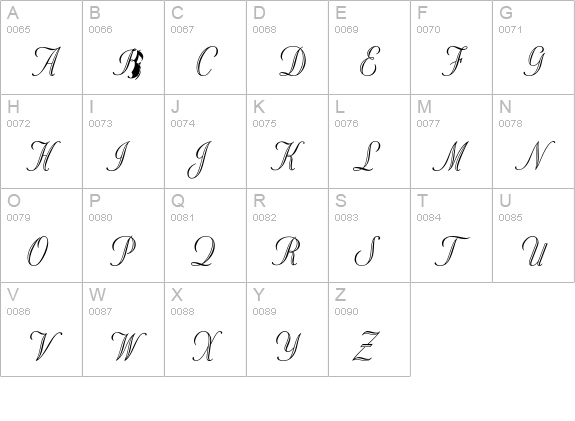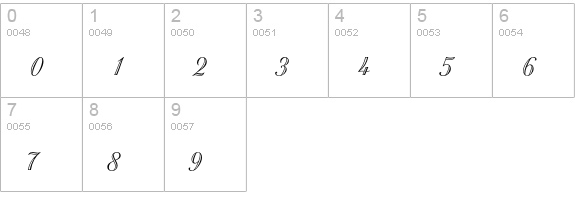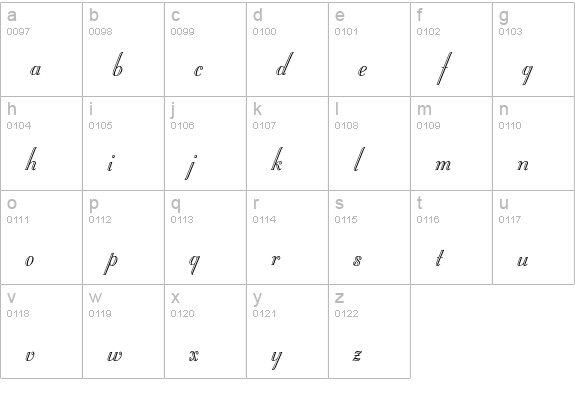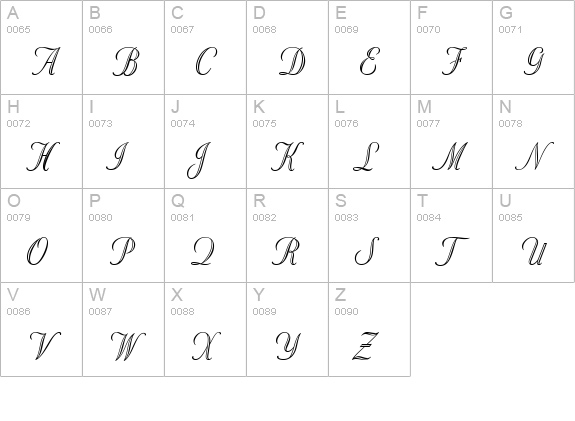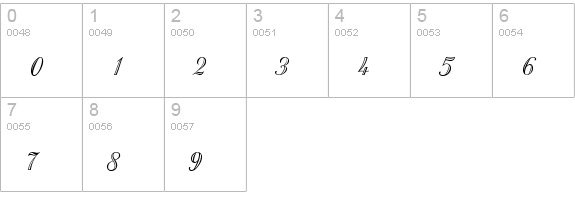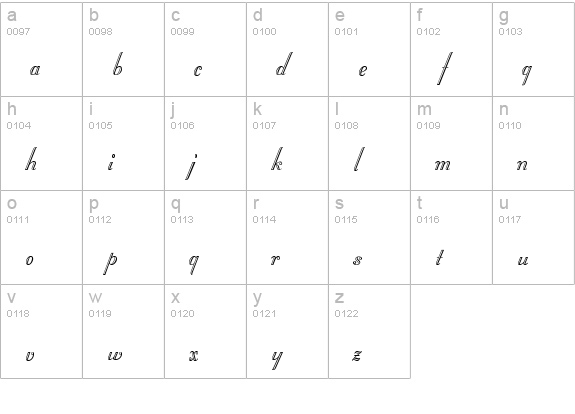
Stuyvesant font is a timeless and elegant typeface that combines classic sophistication with a modern twist. Its sleek lines and sharp edges make it perfect for any design project that requires a touch of refinement. The font exudes a sense of luxury and class, making it ideal for branding, logos, invitations, and more. What sets Stuyvesant font apart is not only its impeccable design but also the fact that it is available for free download at FontsMarket.com. This means that you can elevate your projects without breaking the bank. Whether you are a seasoned designer looking for a new favorite font or a newcomer eager to explore the world of typography, Stuyvesant font is a must-have in your collection. Don't miss out on the opportunity to enhance your designs with the exquisite Stuyvesant font, now freely available for download at FontsMarket.com. Elevate your creations and make a lasting impression with this stunning typeface.